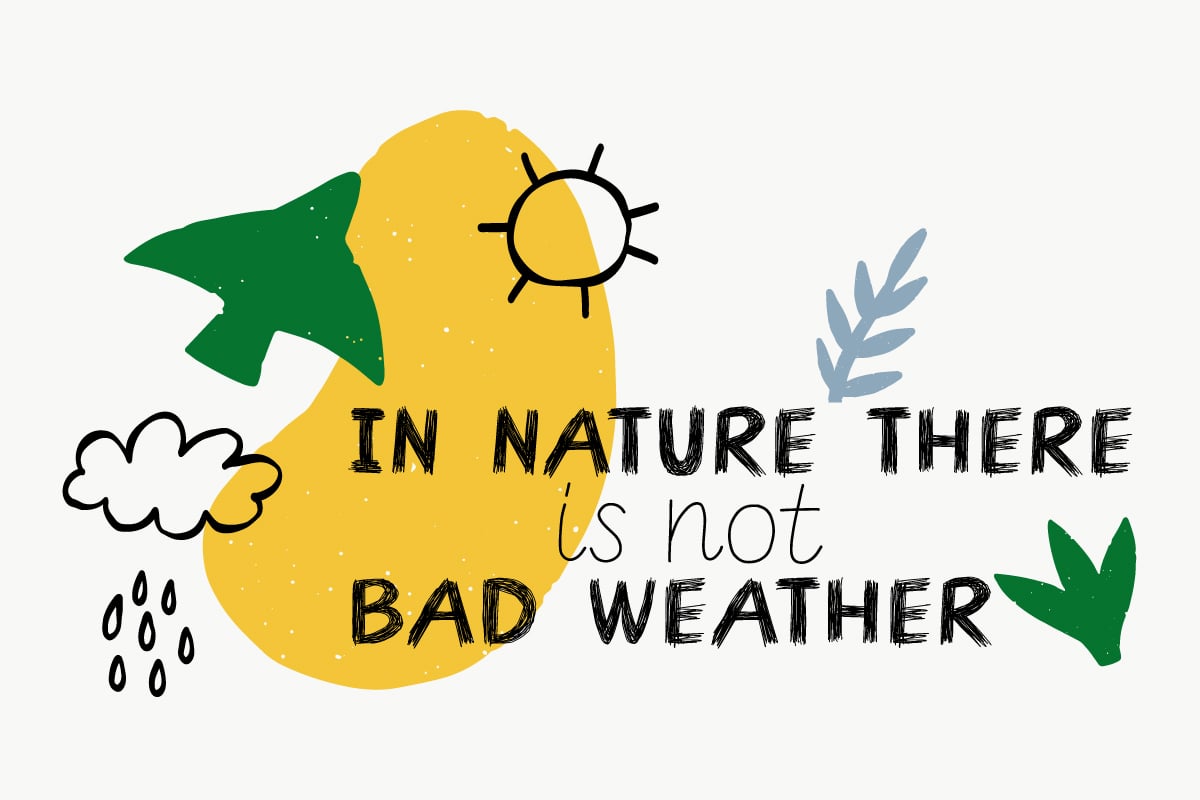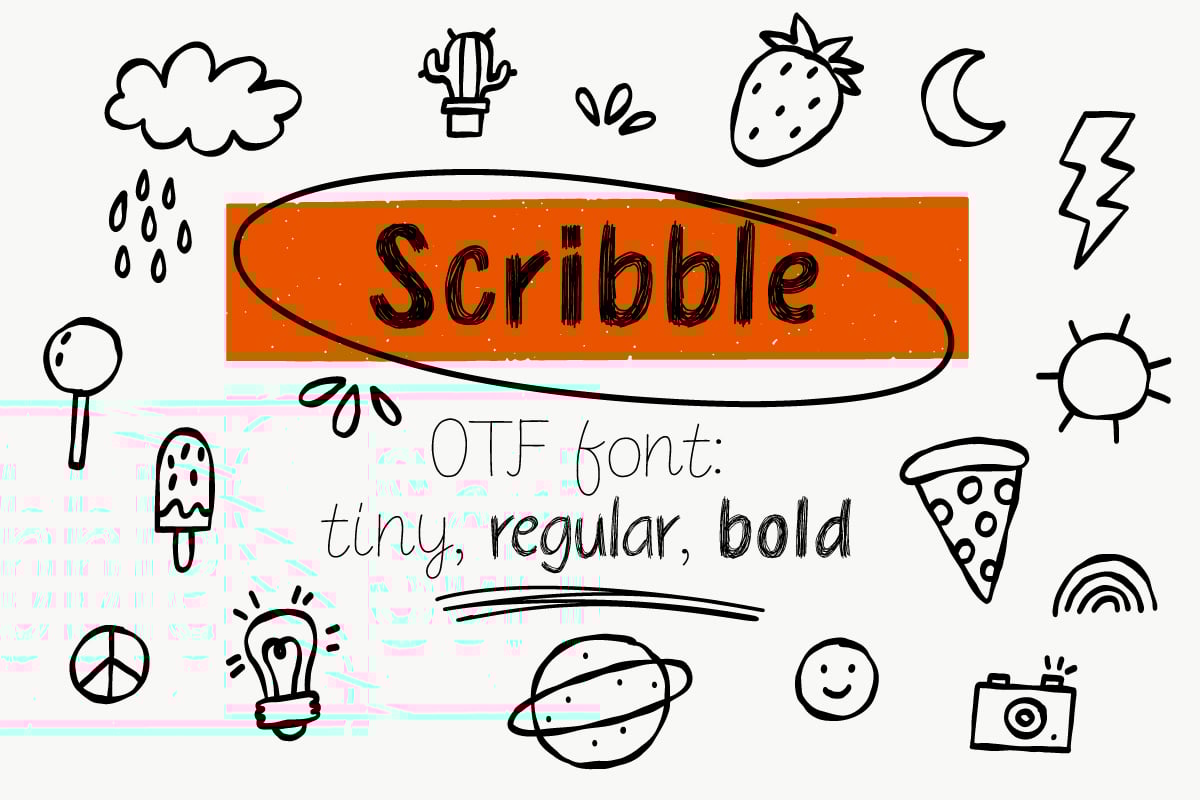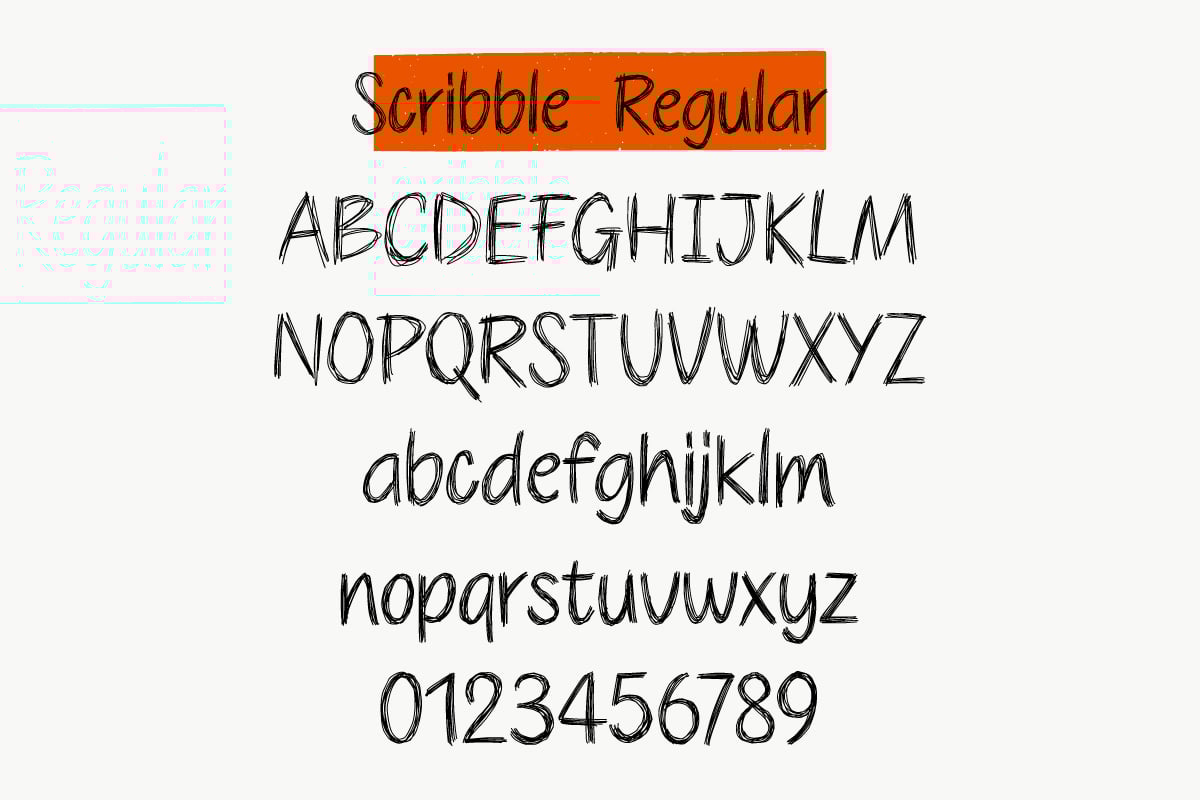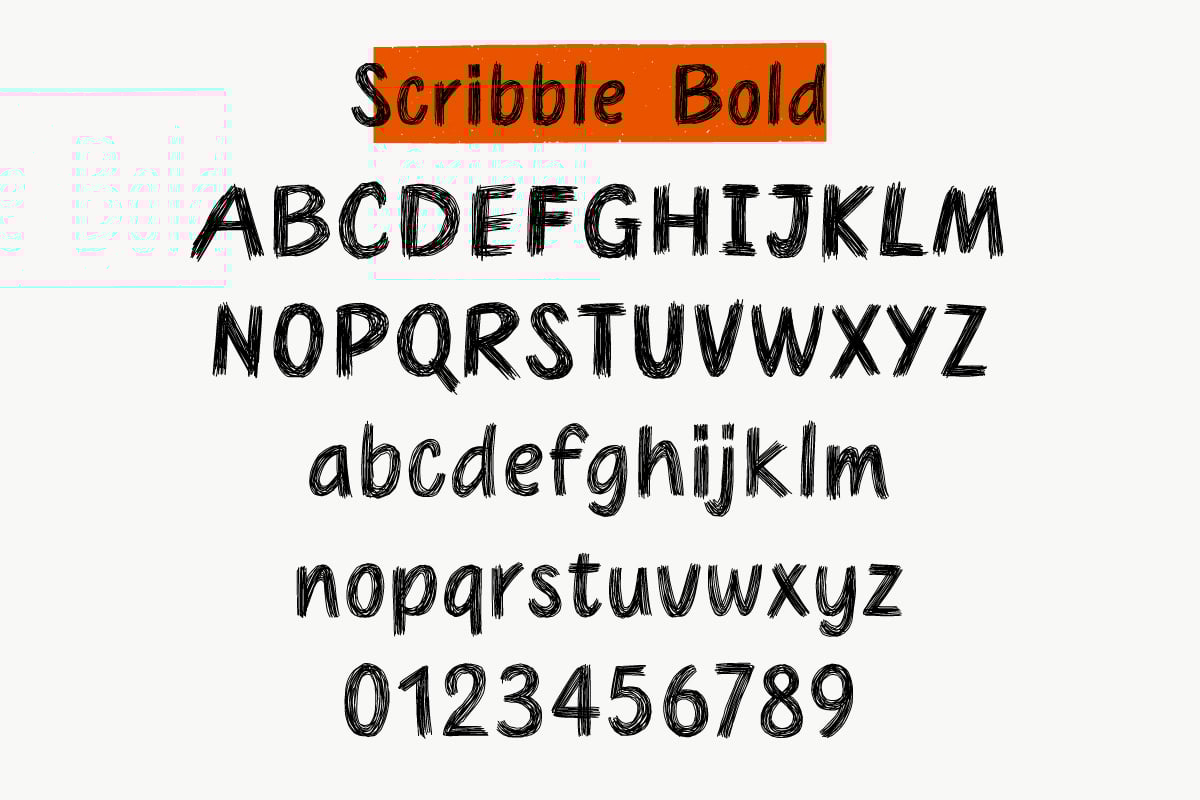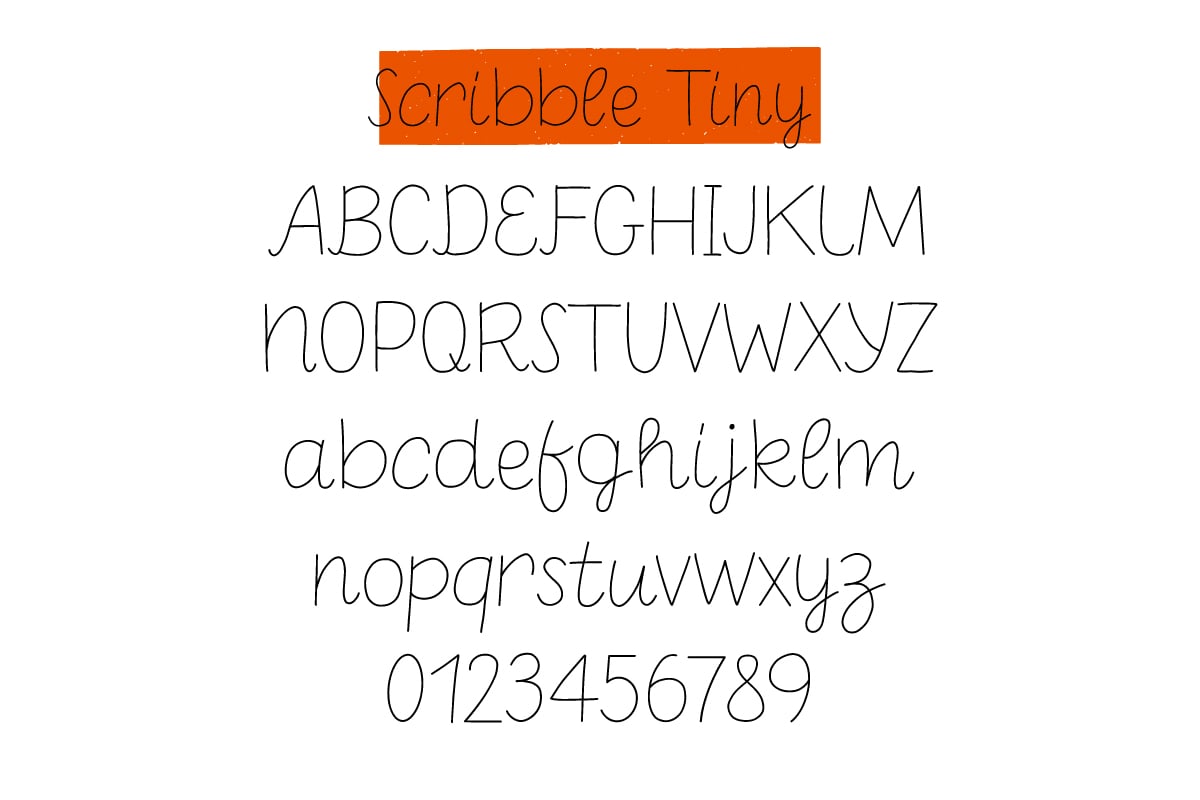
Scribble Font
Scribble Font for decor social media, poster, postcards and more. Font are available in the package for additional emphasis. The possibilities are endless. Enjoy!
Scribble font in three styles: Tiny, Regular, Bold. Format: OTF.